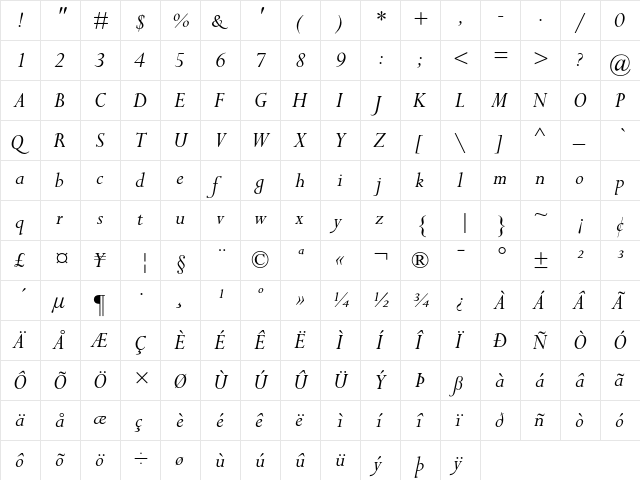
Perpetua Italic
Design Context for Perpetua Typeface
Perpetua offers clean, dependable letterforms without strong stylistic allegiance, making it a practical choice for designers who need flexibility. The slanted form adds forward momentum and visual energy.
Pro Tip: Use Perpetua for emphasis, pull quotes, and subheadings where its slanted energy can add rhythm to the layout.